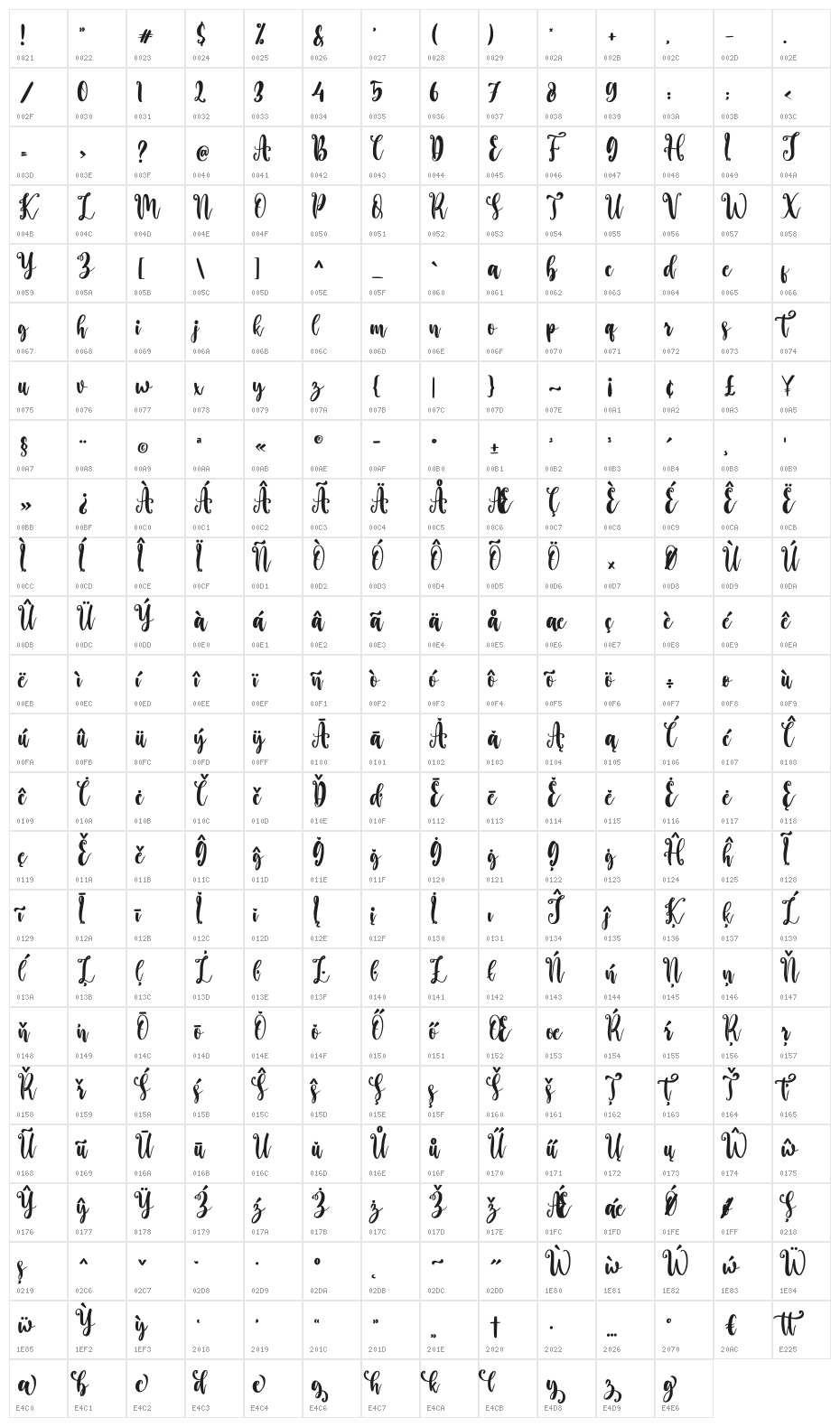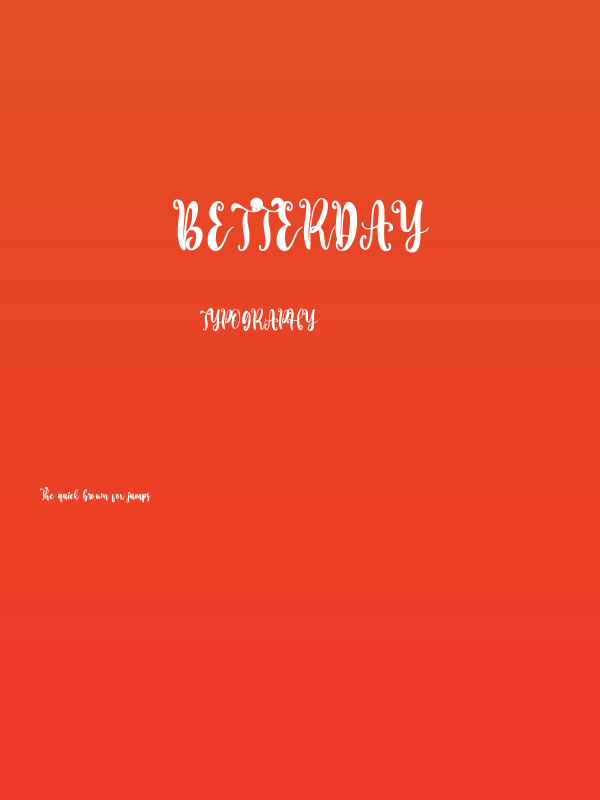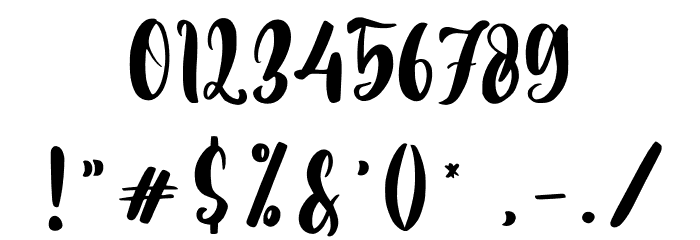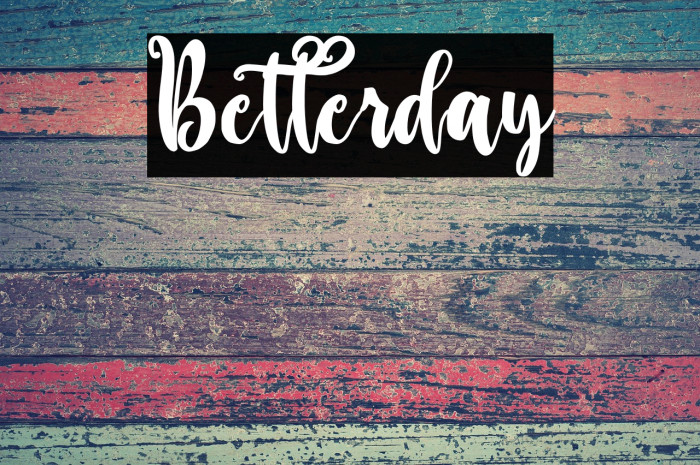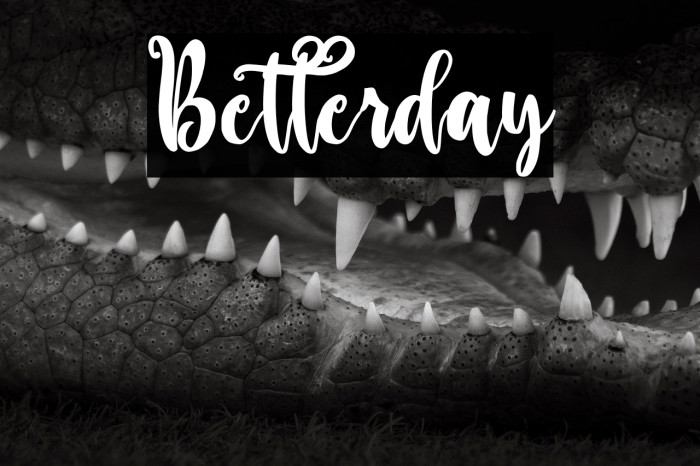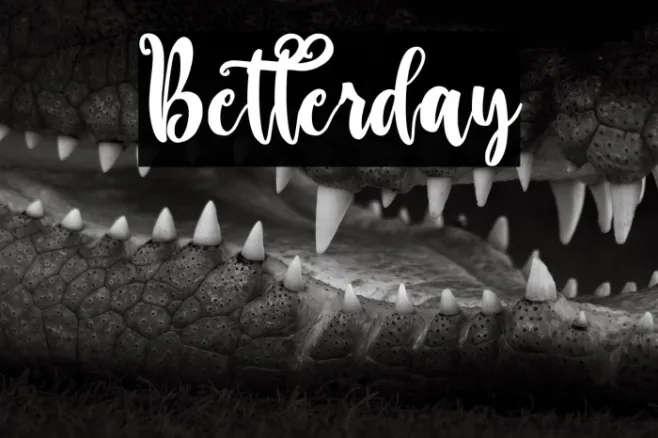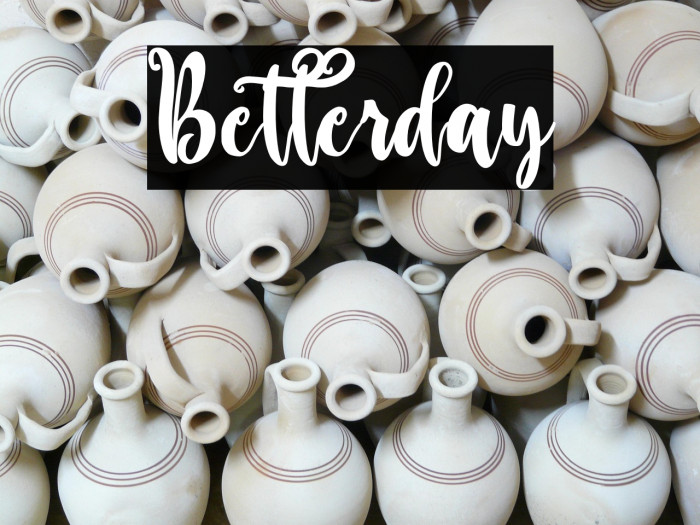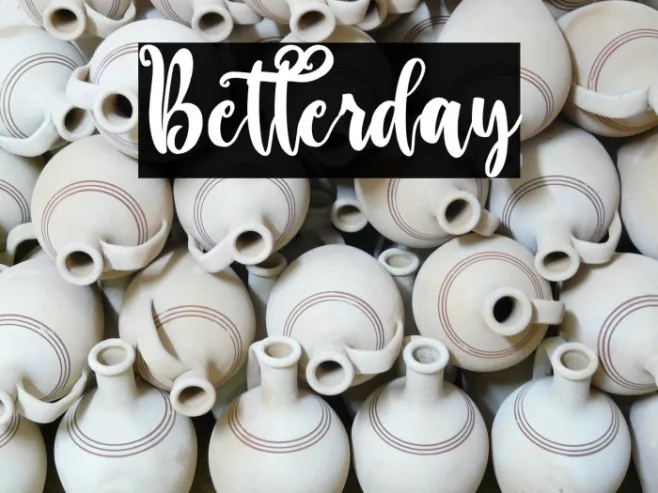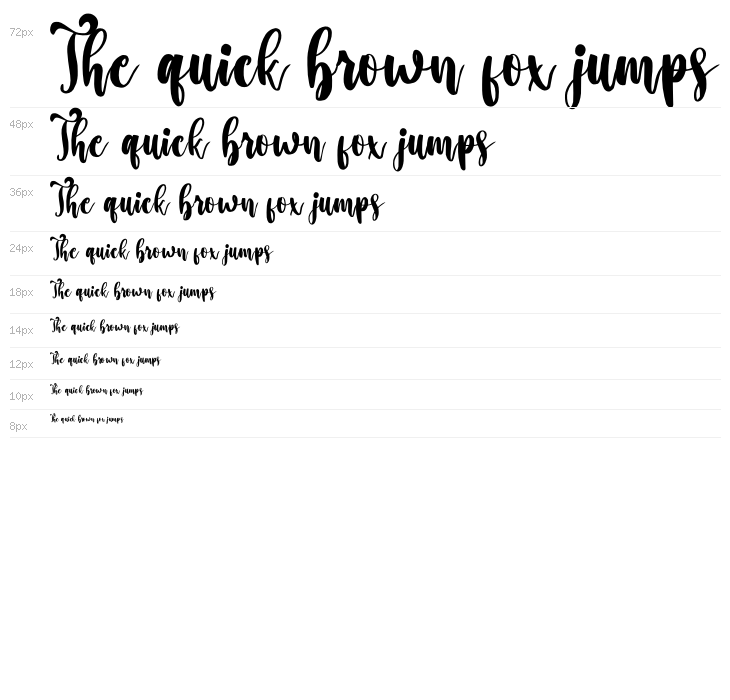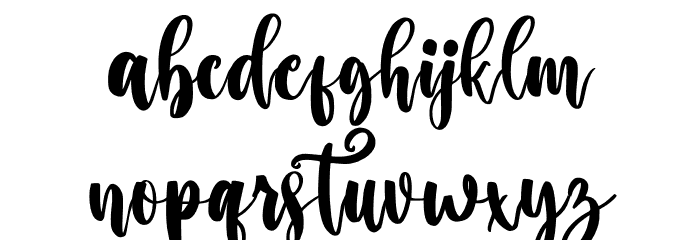
Betterday Font
Betterday Description
This font features a bold, flowing script style with elegant, sweeping curves and flourishes. The uppercase letters are ornate, with exaggerated loops and swirls that give a sense of movement and grace. The lowercase letters maintain a consistent style, with a slightly more restrained design that complements the uppercase characters. Numbers and special characters are designed to match the overall aesthetic, ensuring a cohesive look across all text. The font's thick strokes and high contrast make it stand out, while the decorative elements add a touch of sophistication and charm.
| Proposed Projects | Ideal for wedding invitations, greeting cards, branding, and logo design where a touch of elegance and personality is desired. |